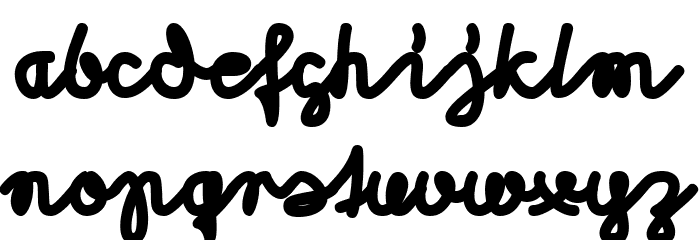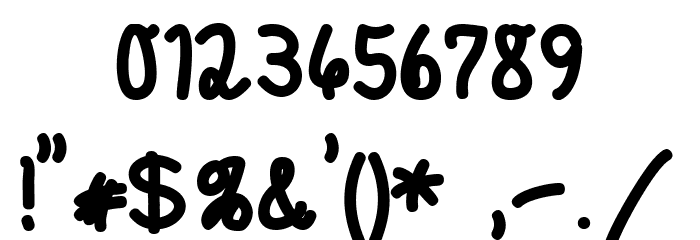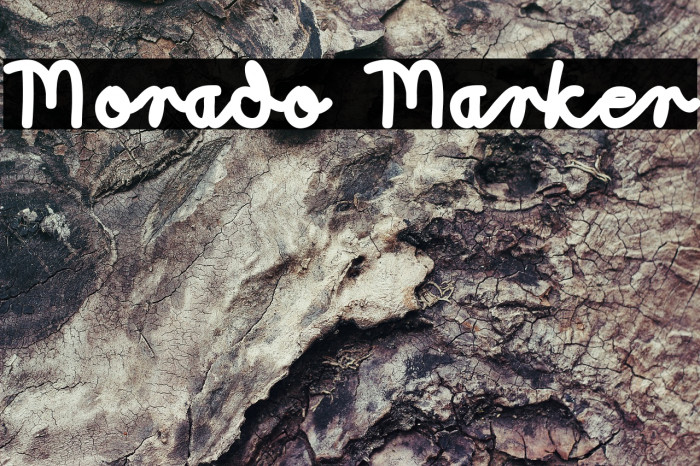
Morado Marker Font
This font exudes a playful and casual vibe, characterized by its bold and rounded strokes that mimic the look of hand-drawn marker writing. The uppercase letters maintain a consistent height, while the lowercase letters exhibit a fluid, cursive style with connected strokes, enhancing its handwritten appearance. The numbers and special characters follow the same bold and rounded aesthetic, ensuring uniformity across all characters. The overall design is approachable and friendly, making it suitable for projects that require a personal touch.
A bold, marker-style font with a playful, handwritten look.
- Proposed Projects: Ideal for children's book covers, playful branding, casual invitations, and social media graphics.
- Overall Style: Casual
- Use Case: Headlines, Logos, Informal Text